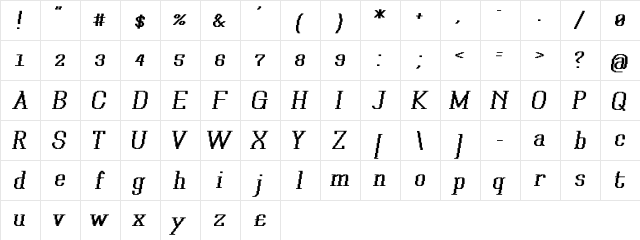
Xilla Pro Pro-Bold-Italic
Design Context for Xilla Pro Typeface
Xilla Pro offers clean, dependable letterforms without strong stylistic allegiance, making it a practical choice for designers who need flexibility. The slanted form adds forward momentum and visual energy. The heavy weight commands attention and anchors typographic hierarchies.
Pro Tip: Use Xilla Pro for emphasis, pull quotes, and subheadings where its slanted energy can add rhythm to the layout.